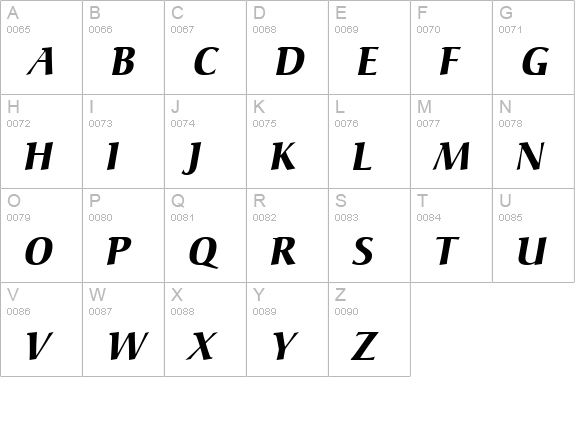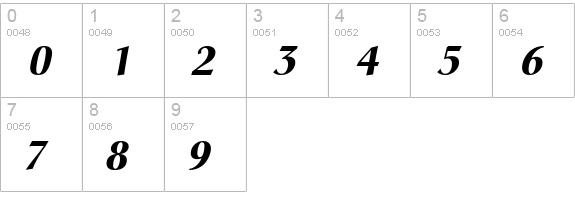
Christiana Bold Italic is a strong, high-contrast, italic variant in the Christiana typeface family \xE2\x80\x94 well suited to headlines, attention-grabbing titles, and strong calls-to-action.
Introducing Christiana Bold Italic font - a stunning display of elegance, sophistication, and timeless appeal. This unique typeface strikes the perfect balance between boldness and grace, making it an ideal choice for projects that demand attention and style. The Christiana Bold Italic font features exquisite curves and flourishes that add a touch of luxury to any design. Best of all, Christiana Bold Italic font is available for free download at FontsMarket.com. This means you can elevate your projects with this exquisite typeface without breaking the bank. Whether you're working on branding, editorial design, or any creative endeavor, Christiana Bold Italic font is sure to make a lasting impression. Download it today and experience the beauty and versatility of this exceptional font.